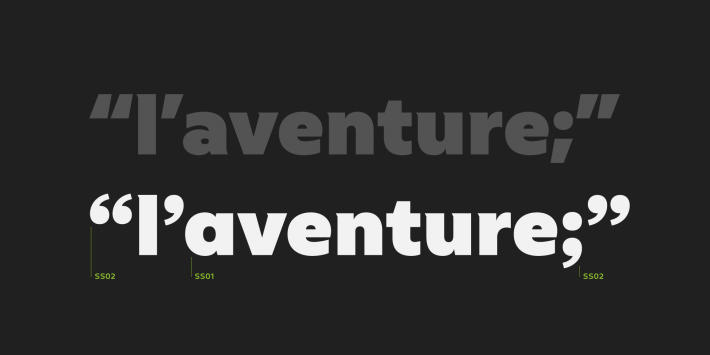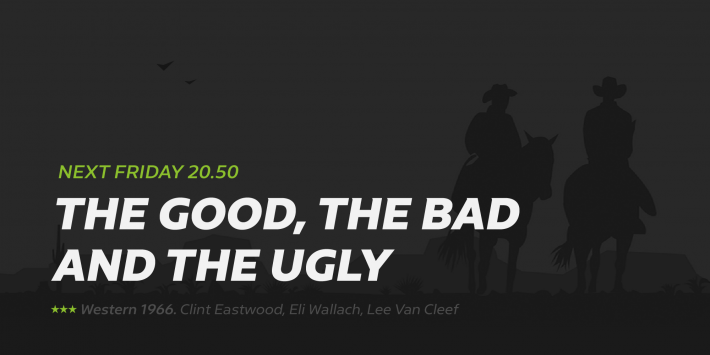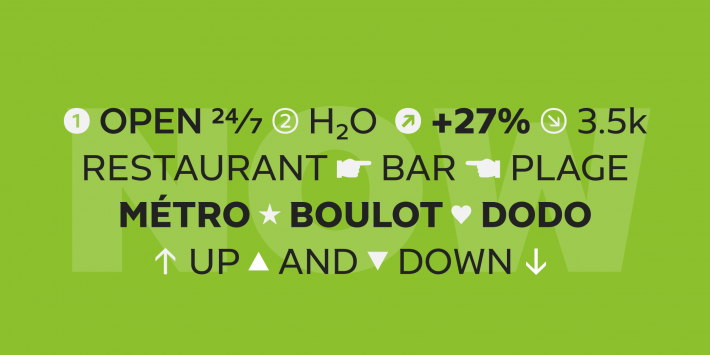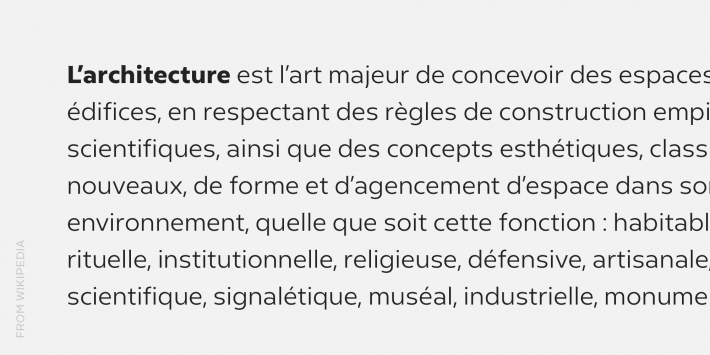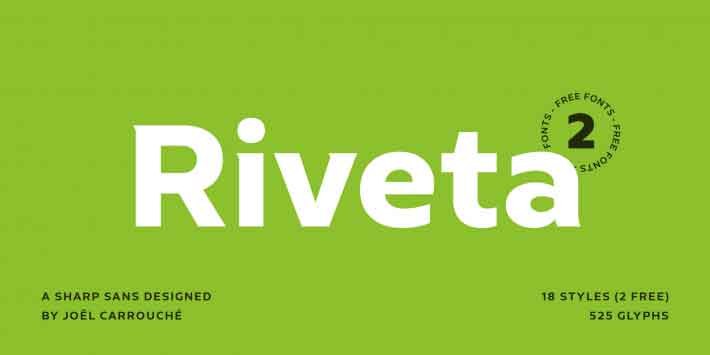
Riveta Font Family
Riveta is a sharp type family available in 18 styles, designed in 2021 by Joël Carrouché. Medium and medium italic styles are 100% free to use.
The typeface features a simple and solid geometric construction, with straight terminals and a very discrete triangular serif that gives the font some extra spice in big size.
Riveta is equipped for advanced typography, with features such as ligatures, tabular and proportional figures, arrows and icons, stylistic alternates, case-sensitive forms, fractions, scientific inferiors and superiors, and circled figures.
Where Riveta Font Family works best
Riveta Font Family stays legible at small sizes, which makes it a strong choice for navigation, buttons and dashboards in web design and app interfaces.
Clean sans serifs like Riveta Font Family are the default language of SaaS, fintech and product branding.
What is Riveta Font Family good for?